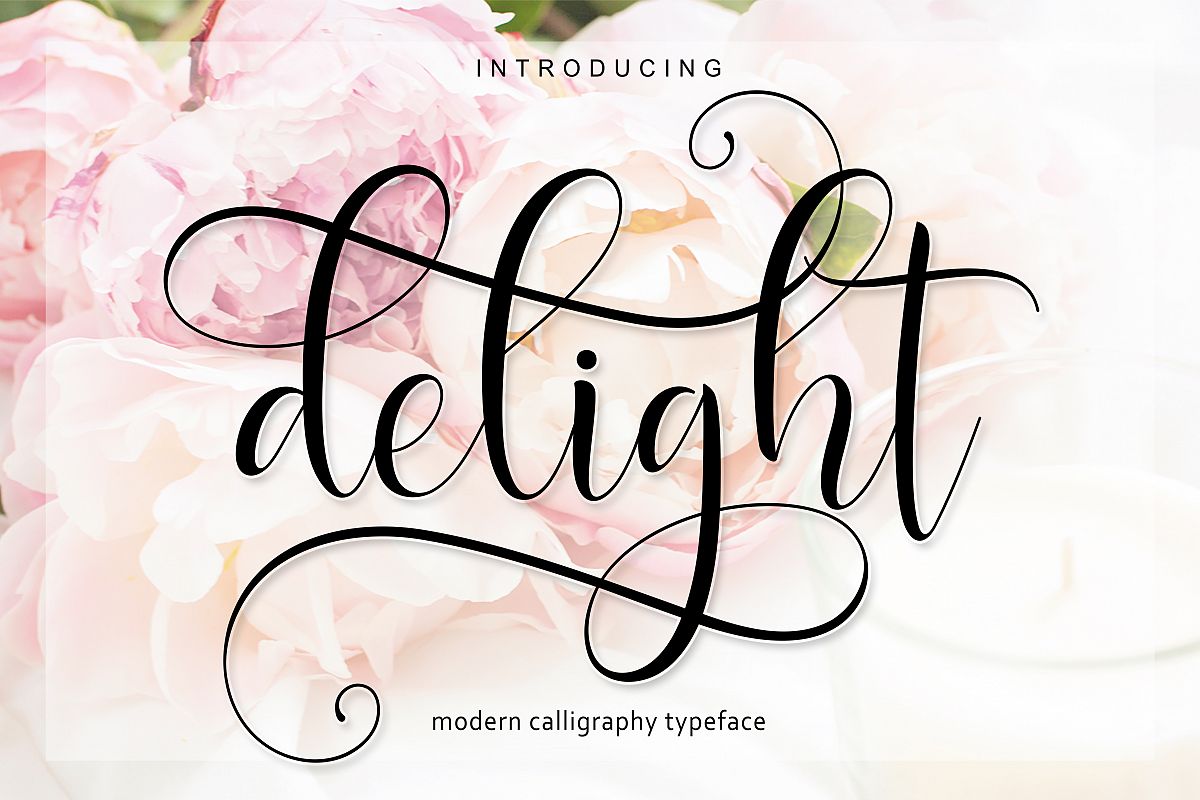
Delight Script | 4 Font
Delight Scrip
Delight Sans
Delight Sans Slant
Delight Slant
Introducing
Delight script
Delight script a new fresh & modern script with a handmade calligraphy style, decorative characters and a dancing baseline! So beautiful on invitation like greeting cards, branding materials, business cards, quotes, posters, and more!!
Delight script come with 423 glyphs. The alternative characters were divided into several Open Type features such as Swash, Stylistic Sets, Stylistic Alternates, Contextual Alternates. The Open Type features can be accessed by using Open Type savvy programs such as Adobe Illustrator, Adobe InDesign, Adobe Photoshop Corel Draw X version, And Microsoft Word. And this Font has given PUA unicode (specially coded fonts). so that all the alternate characters can easily be accessed in full by a craftsman or designer.
Delight script :
Uppercase & Lowercase International Languange & Symbols Support Punctuation & Number PUA Unicode Range Standard Stylistic Alternates Stylistic Set 1-13 Character Variant Contextual. The ZIP file are include the following :